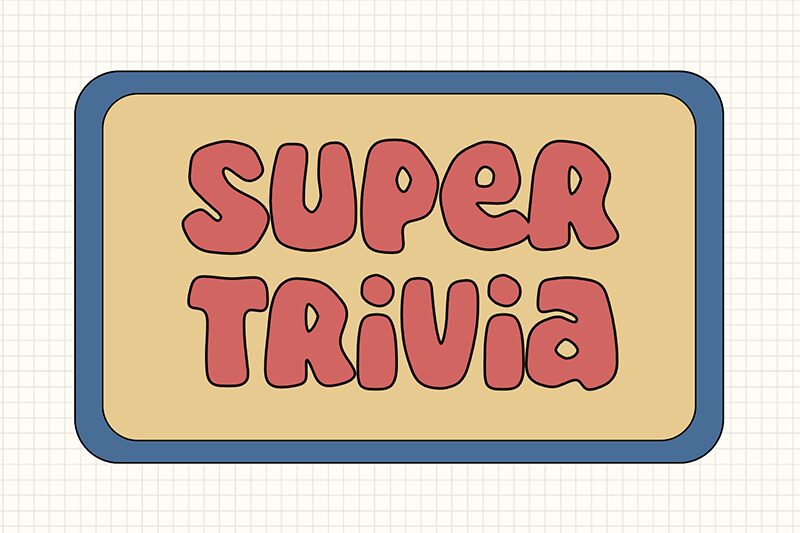
Super Trivia
Super Trivia font by fsuarez913 is a bold cartoon display font with a rounded appearance and organic feel and casual aesthetic. A friendly mood can be sensed in each character, further enhanced by a pleasant retro appeal. The variety present in this font is what makes it versatile and suitable for different entertainment contexts.
Bring the details of Super Trivia into your t-shirts designs, toys packaging, coloring books covers, brand logos for toys or even food products targeted at children. Other suggested uses include comics book titles design, game projects (including board games), school-related projects, movie posters, etc.